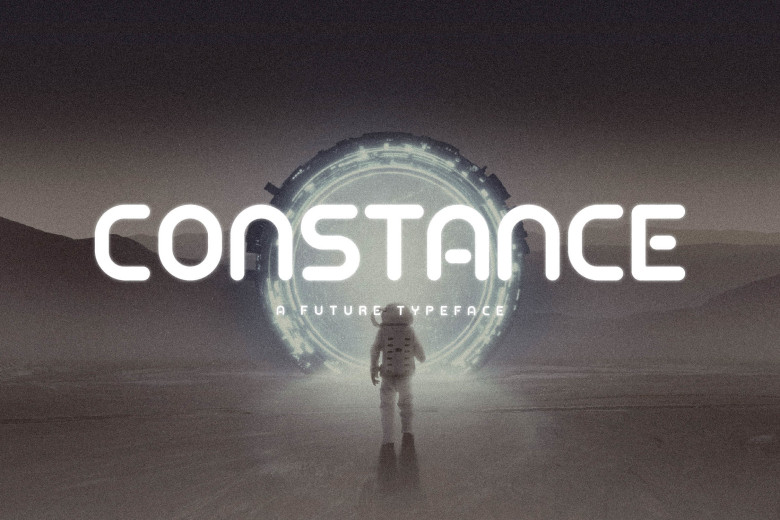
Constance Font
Introducing Constance. It is a modern classic sans-serif font and unique style, with a futuristic look. Can be made into a elegant & luxury. which This modern sans serif font is intense and eye-catching, perfect for various. Suitable as a book or movie title, a fashion brand, a magazine, clothes, lettering, quotes.
Constance Display Font